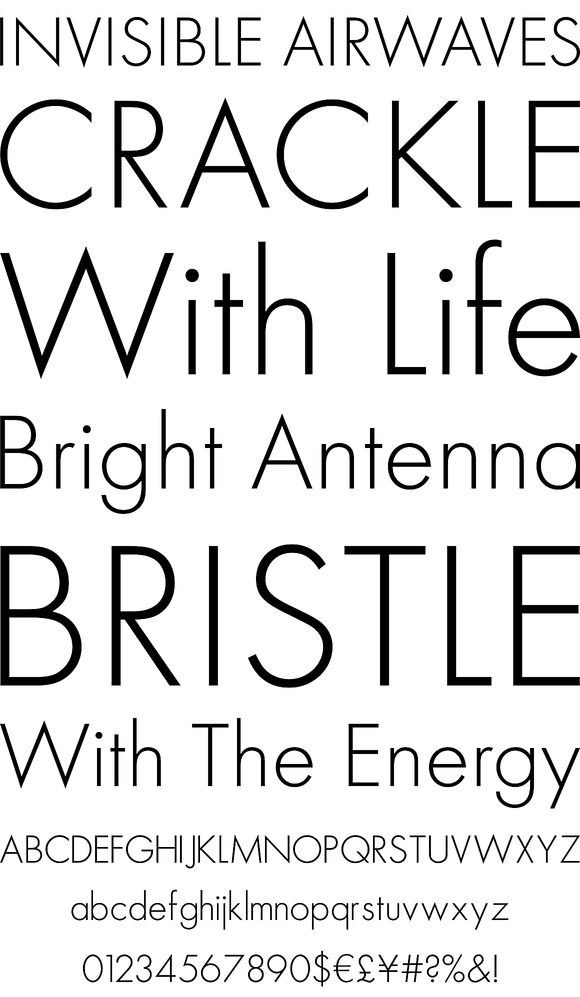
Futura Font
Futura. The very name brings to mind jet-age splendor of the highest order, and indeed the text on the commemorative plaque left behind on the Moon by the Apollo 11 astronauts in July, 1969 is set in Futura. There is no other font that can do what it does with the same impact. You might say Futura is to Helvetica as driving a Porsche is to driving a Toyota--they both get you there, but the former does it with so much more fun.
Futura was designed by type design luminary Paul Renner, and is used extensively in advertising and logo design, by IKEA, Volkswagen, Shell, HP and many more. Used in any headline or body situation, Futura can bring you all the magic, promise and forward-looking sans power in an iconic and powerful way, as director Stanley Kubrick knew--it was his favorite font.
Commissioned by the Bauer type foundry, Futura was commercially released in 1927.